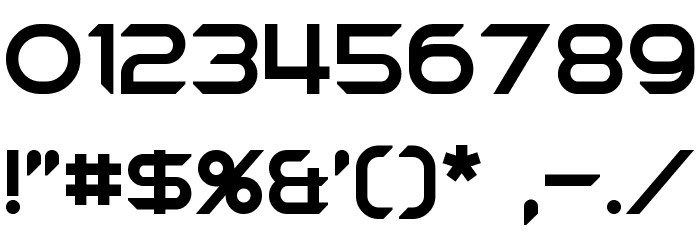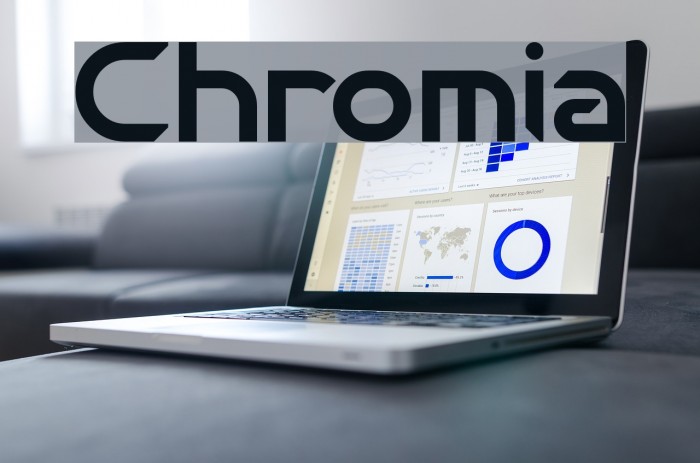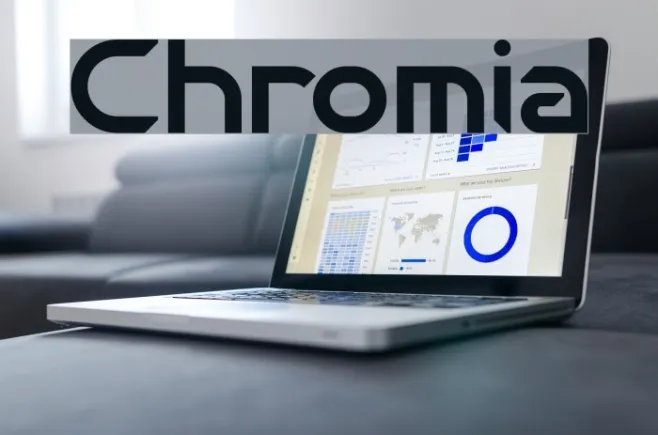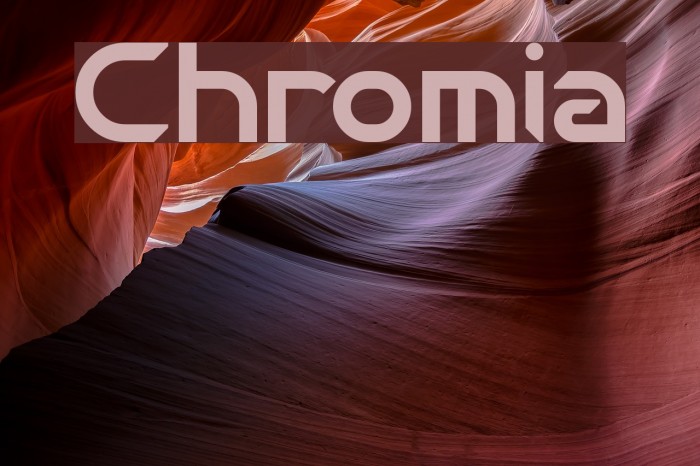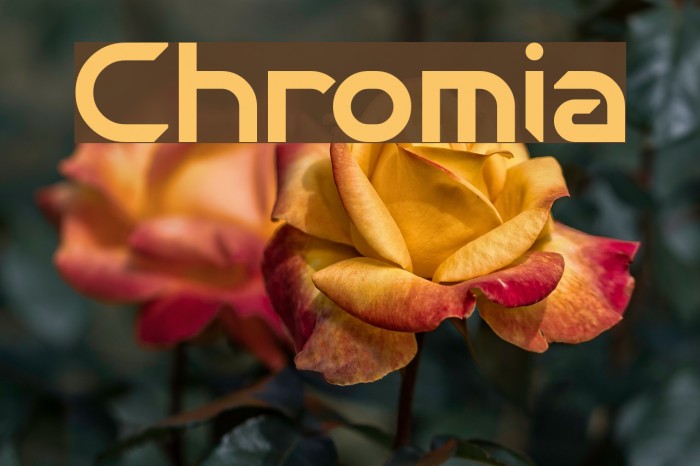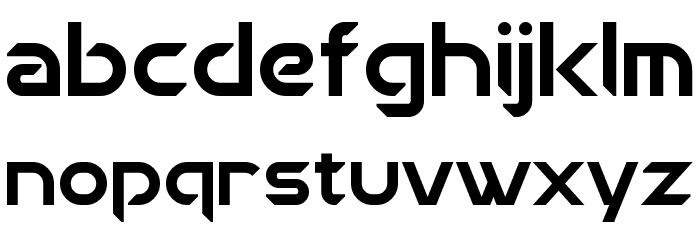
Chromia Font
Chromia Description
This font features a modern and geometric design with clean, sharp edges and a futuristic aesthetic. The uppercase letters are bold and angular, while the lowercase letters maintain a consistent style with rounded elements that add a touch of softness. The numerals are distinct and easy to read, complementing the overall design. Special characters are well-integrated, maintaining the font's cohesive look. This typeface is ideal for projects that require a contemporary and tech-savvy appearance.